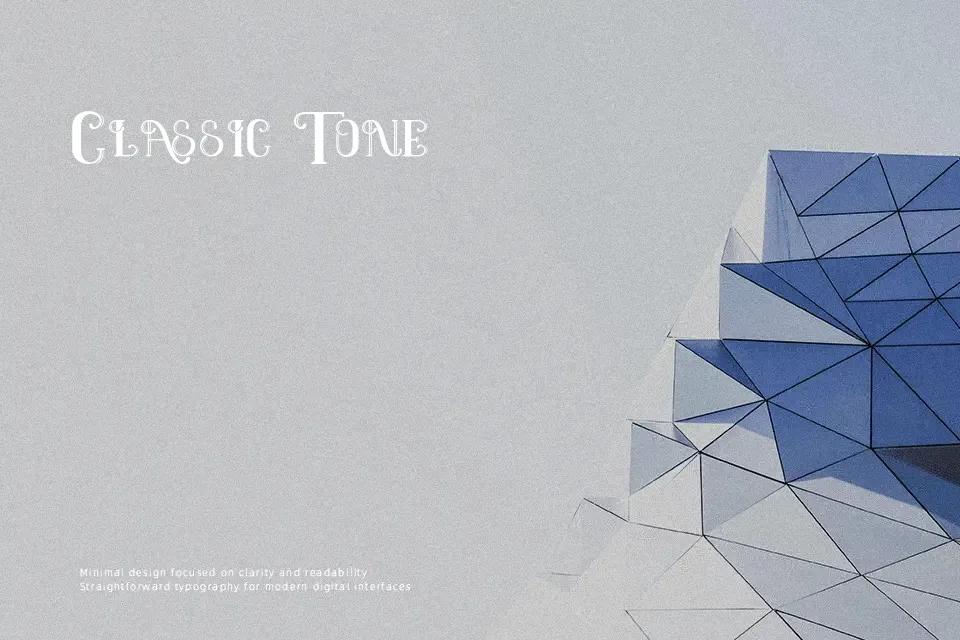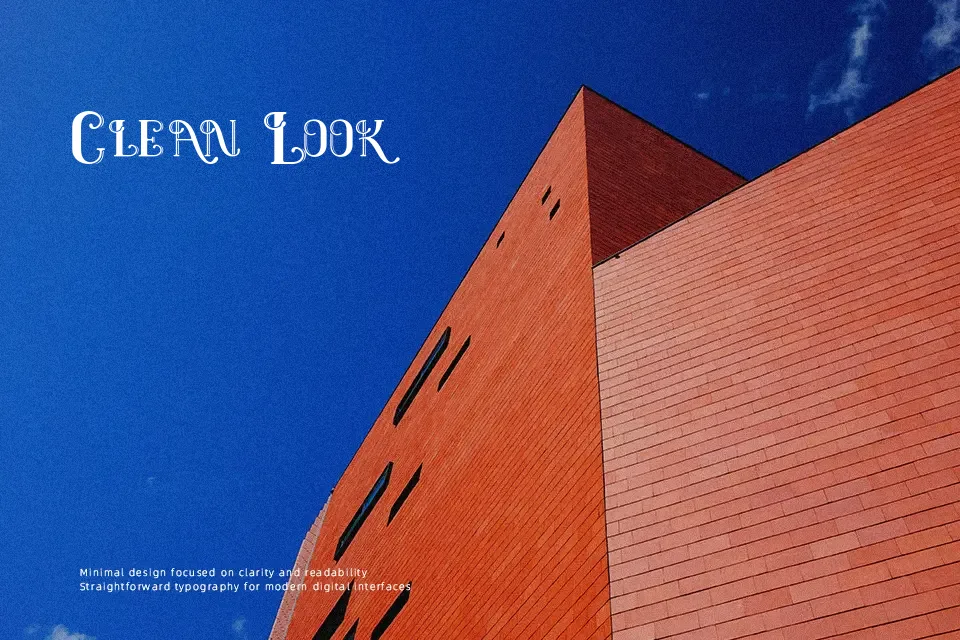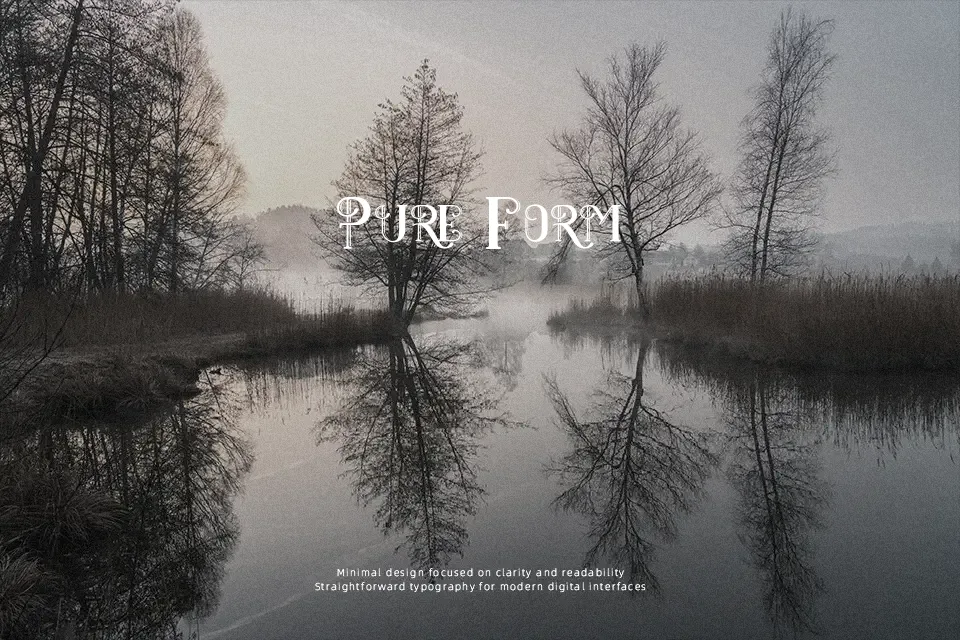
Black Clover Display Font
Designed by Beautypes
Black Clover Display presents a striking modern vintage aesthetic featuring structured letterforms, solid weight, and clean strokes. Originally designed as part of a dynamic duo, it delivers a bold, retro-inspired presence that balances classic charm with contemporary readability. The typeface excels in establishing strong brand identities, working beautifully for artisanal coffee packaging, custom apparel labels, and striking typographic logos that demand attention.
This font performs remarkably well in large headline settings where its robust structure anchors the composition. However, its distinct nostalgic character can feel overwhelming in ultra-minimalist interfaces or dense paragraphs, where a simpler sans-serif is necessary. Compared to heavily distressed retro options, it maintains crisp edges, offering cleaner versatility for professional designs.
– Vintage-inspired branding and robust logo marks
– Custom apparel and merchandise design
– Artisanal product packaging and prominent labels
– Dense body copy and extensive paragraphs
– Ultra-minimalist tech startup interfaces
– Small-scale mobile application typography
Perfect for branding, fashion, and logo, with a bold and display style.